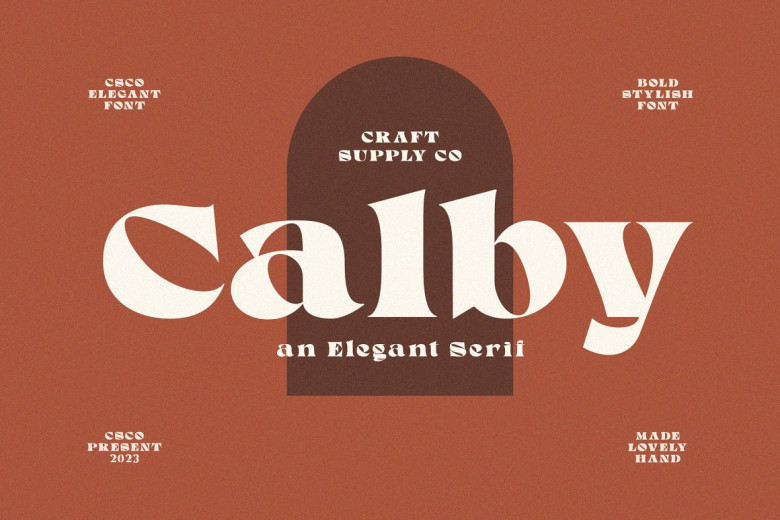
Calby Font
Meet Calby – a new and elegant serif font family that includes a group of two Regular and Italic styles. Whether you prefer a straightforward, contemporary appearance that adds flair to your projects or something more sophisticated and formal that sets you apart from the competition, Calby has the right font to suit your needs. A style designed for the horror of the bitumen ideal for regular work.
A style designed For a compendium face the daily life you aspiration to look more sensational. The suitable forms of these to a concern for a successful look. Both variations are available in both Regular and Bold, giving you the ideal combination for your specifications.
Calby Serif Font